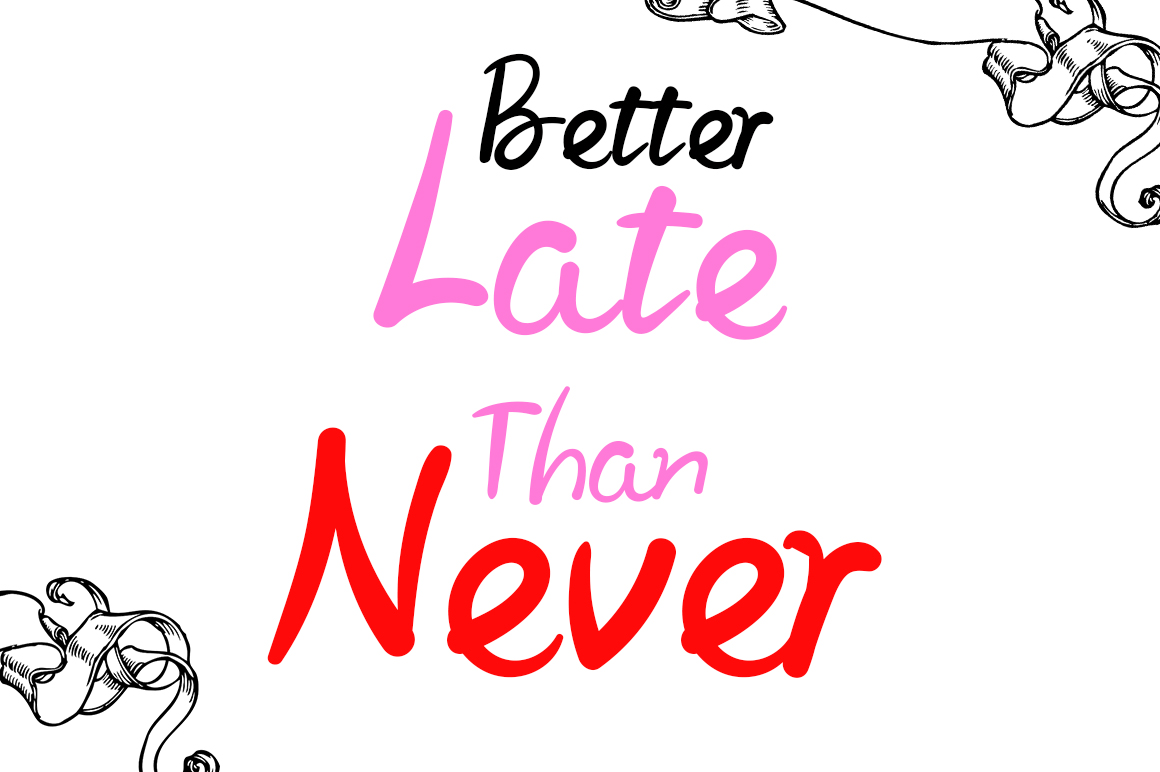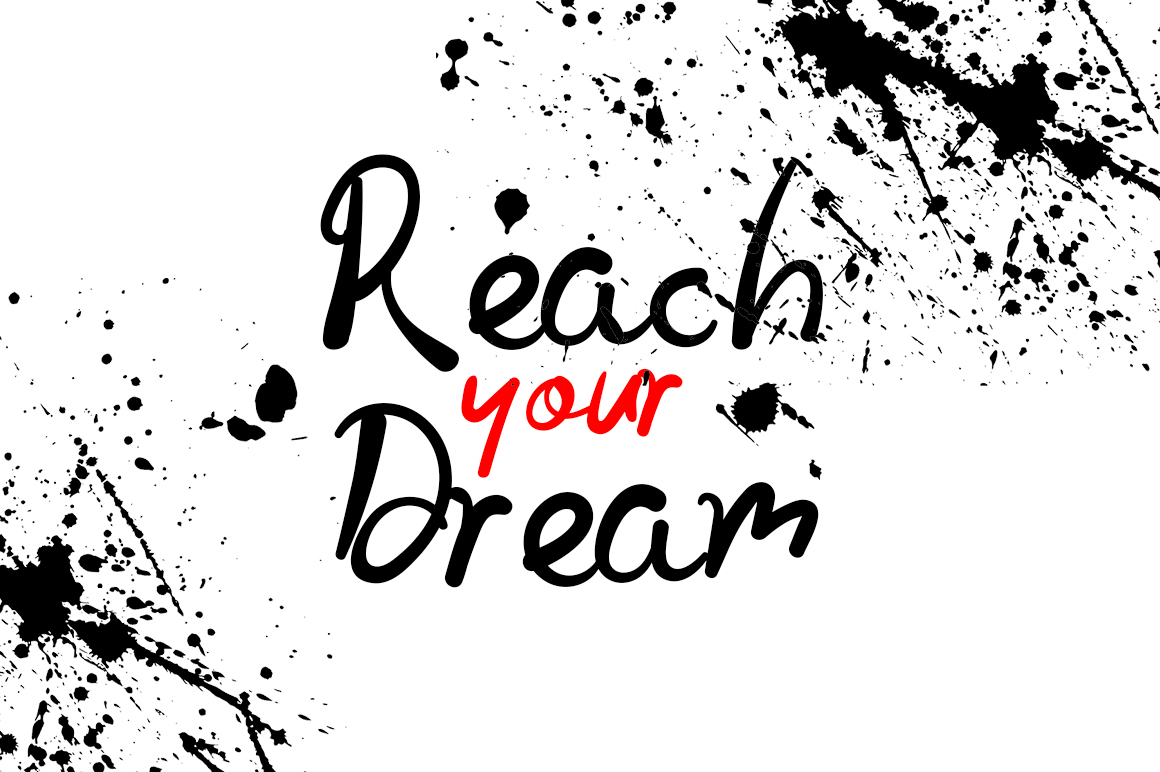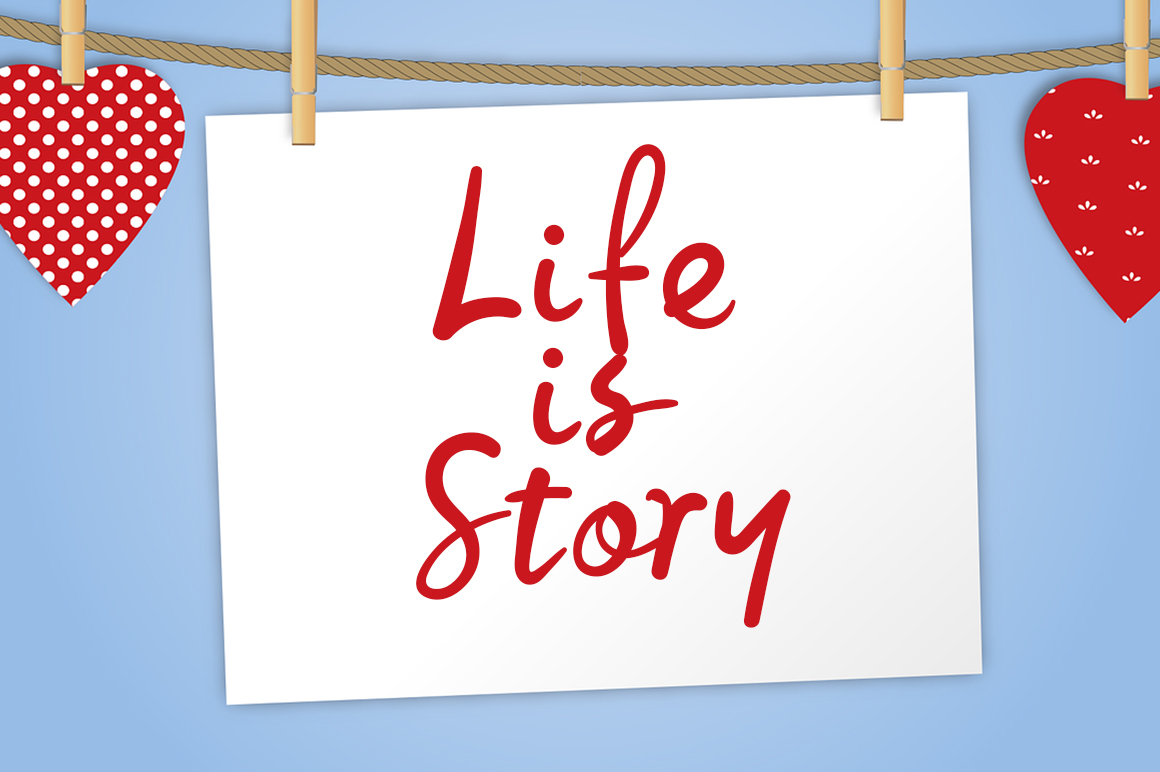
Lost Dolly Script Font
It’s a fun and cute handwritten font. With well-rounded characters and a friendly style, this typeface is a great choice for wedding projects, birthday materials, children’s designs, and more!